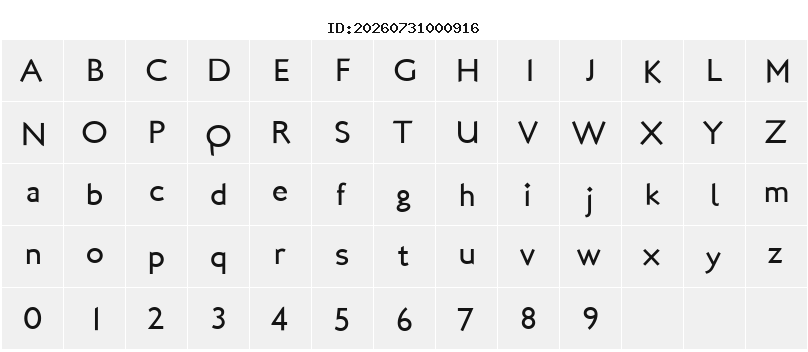
LondonBetween Preview
About LondonBetween.ttf
LondonBetween.ttf is a modern, elegant sans-serif font designed for ultimate readability and visual harmony. Perfect for branding, headlines, web design, and print materials.